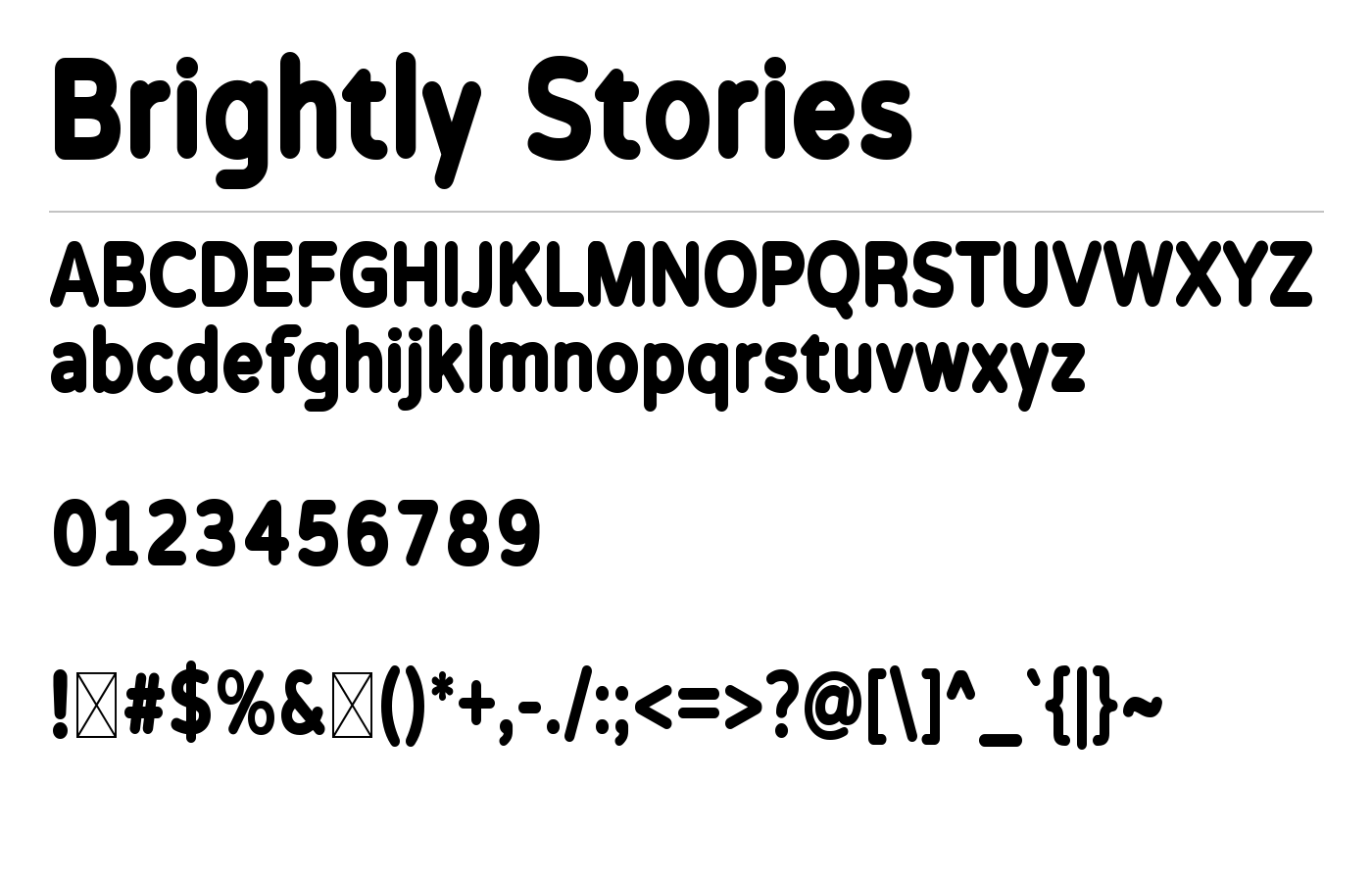
Brightly Stories is a bold, rounded sans serif font that conveys a friendly and approachable feel. Its thick, even strokes and soft curves give it a playful yet modern personality, making it ideal for children's books, casual branding, and inviting headlines. This font works well in designs that want to communicate warmth and accessibility with clear, easy-to-read letterforms.
Brightly Stories Font
About Brightly Stories Font